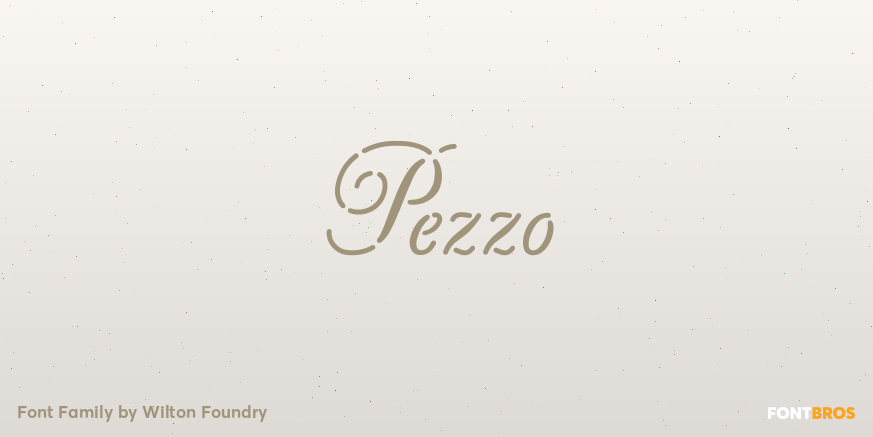
Pezzo
About Pezzo
The idea for Pezzo was born when I saw an old copper monogram stencil. The script forms are inspired by titles and signature inscriptions on several Dutch seventeenth century paintings, where brushes were used rather than quills. There is little variation…